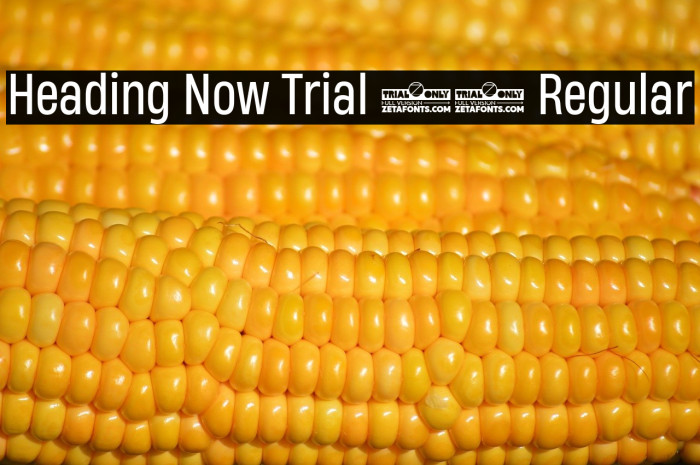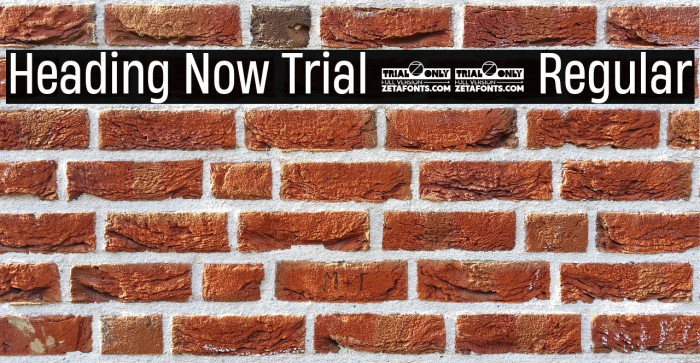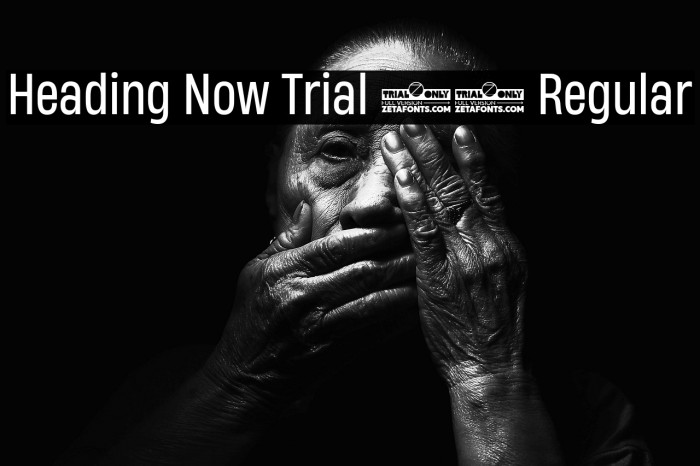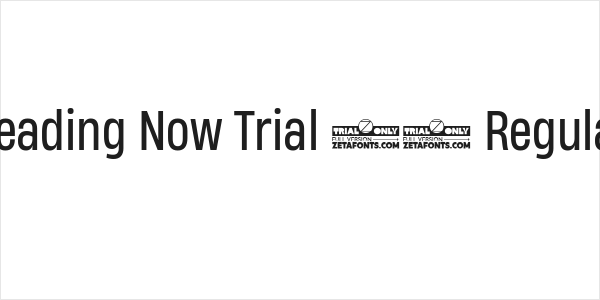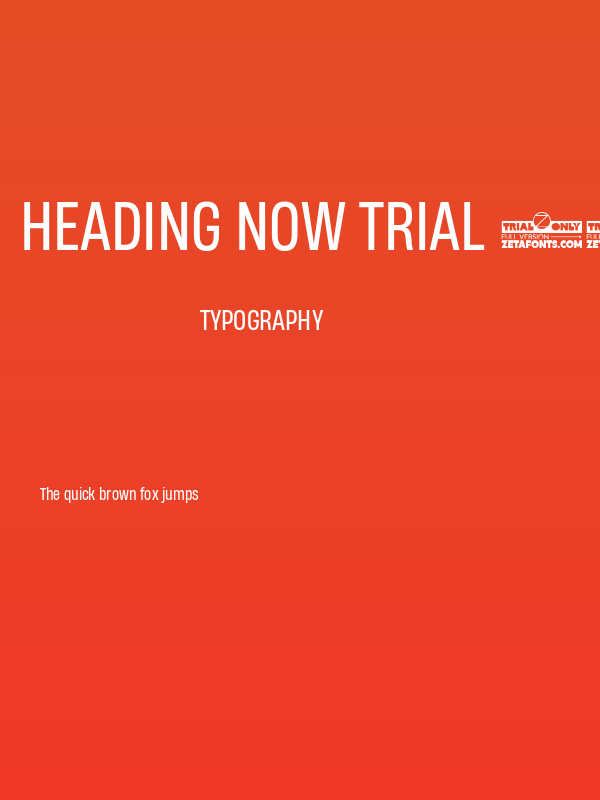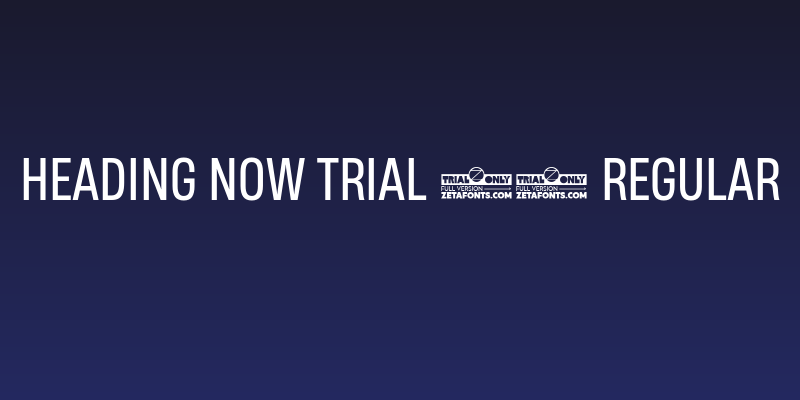
Heading Now Trial 54 Regular Font
Heading Now Trial 54 Regular Description
This font features a clean and modern sans-serif design, characterized by its tall and narrow letterforms. The uppercase letters are bold and assertive, while the lowercase letters maintain a consistent width, offering a harmonious balance. The numerals and special characters are designed with clarity and precision, making them highly legible. The overall style is contemporary, suitable for a variety of digital and print applications. Its simplicity and elegance make it versatile for both professional and creative projects.
| Use Case | Headlines, Logos, Digital interfaces |
| Proposed Projects | Ideal for headlines, branding, advertising, and digital interfaces where clarity and modernity are key. |